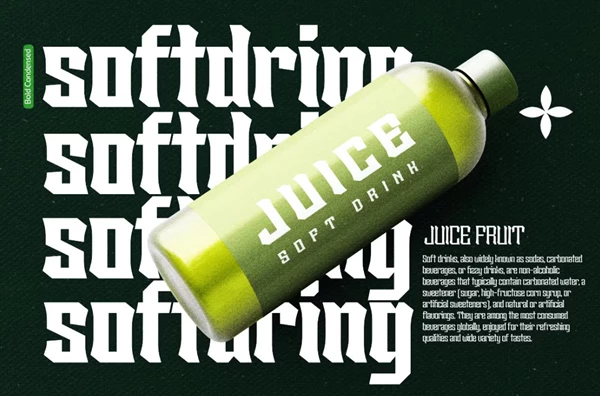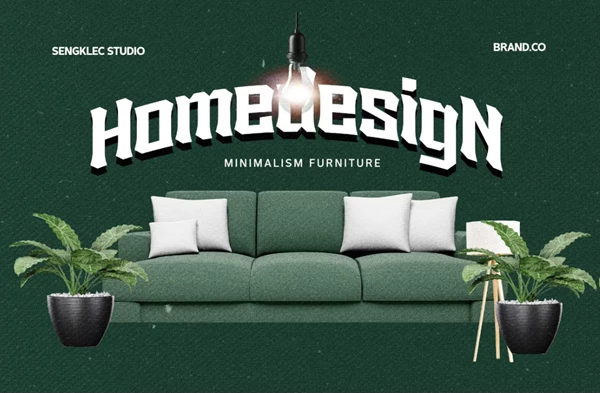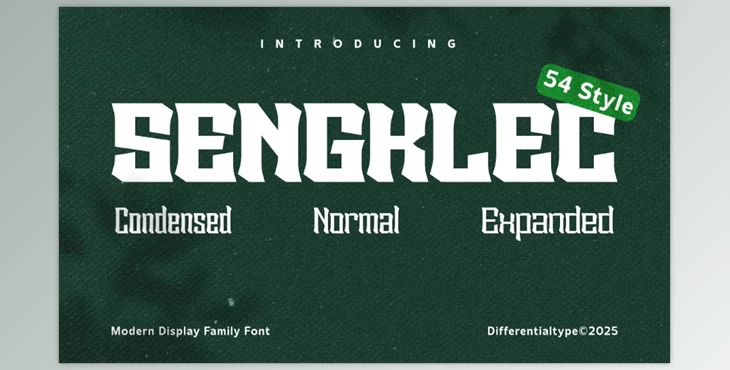
Sengklec - Display Family Font:
Sengklec is a display font family of 54 styles, all weights, widths, and italics included. This font family has a modern feel with the added charm of all things blackletter. It's the perfect family to provide any font need with various styles for varying volumes of necessity.
Sengklec is powerful and classy, making it an apt choice. Great for posters and logos that require a strong punch, Sengklec can also help with headlines and product branding. This font is the go-to for any designer looking to add power and fun to their projects for a professional, artistic approach to any need.